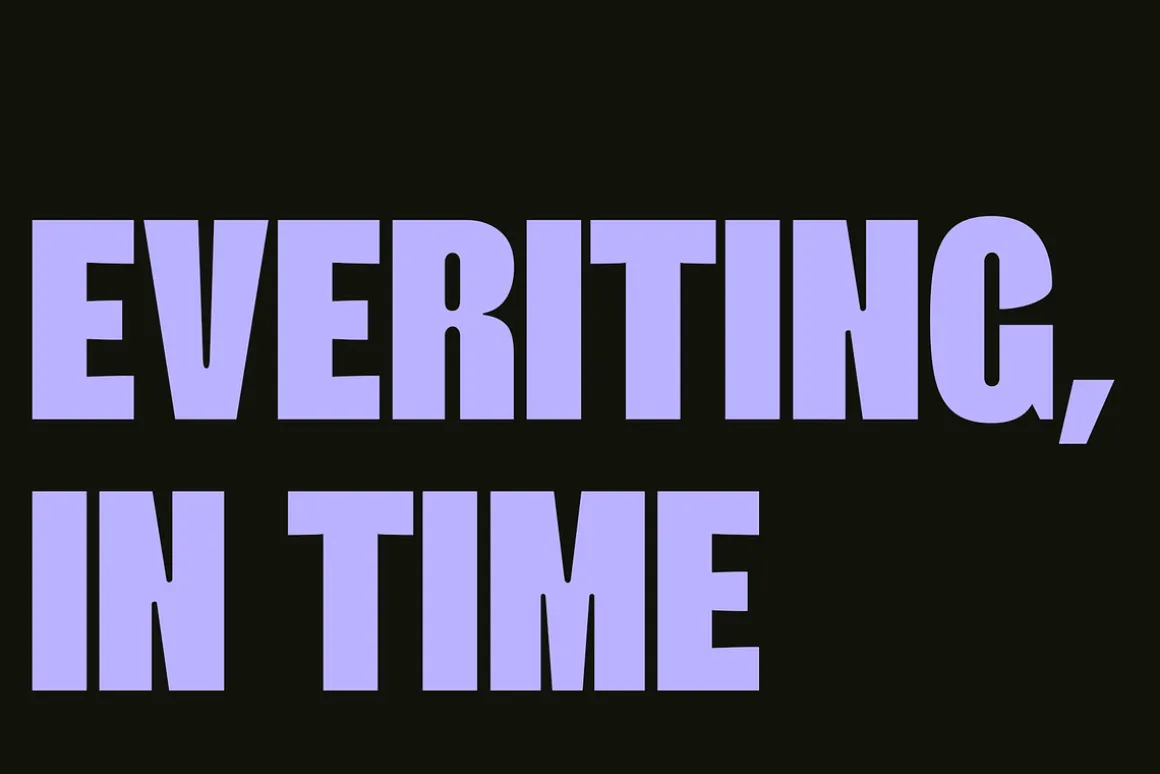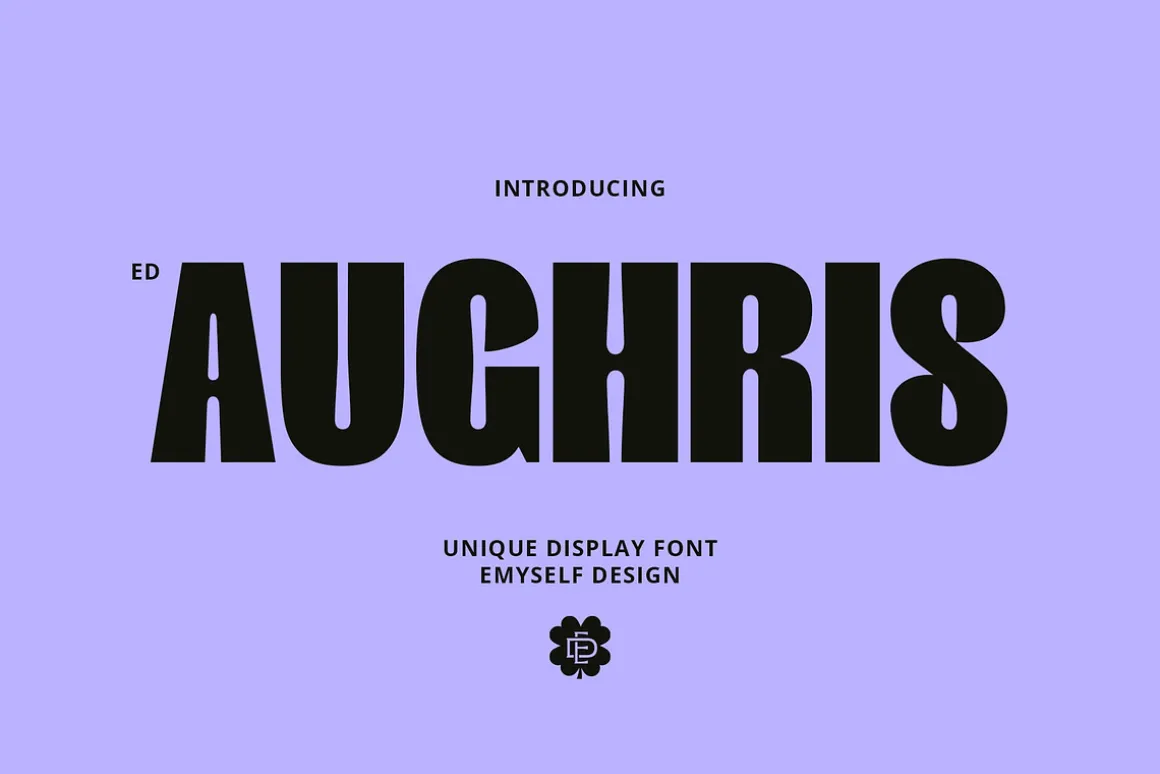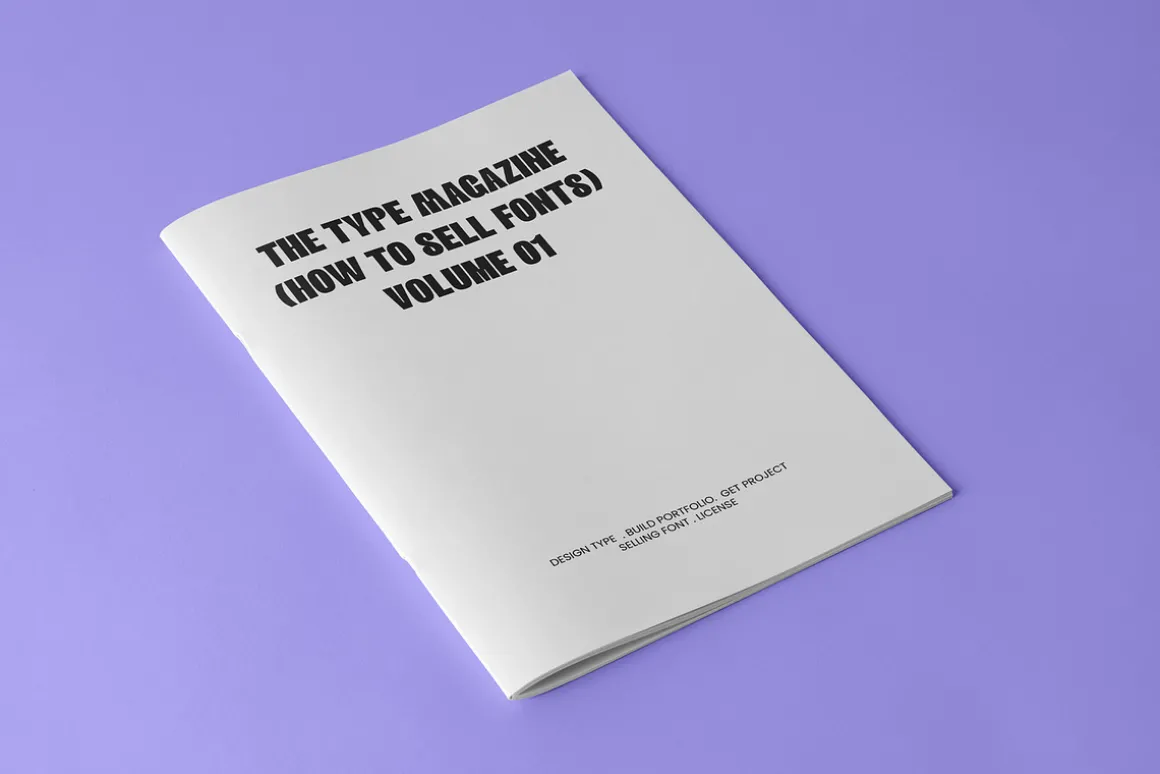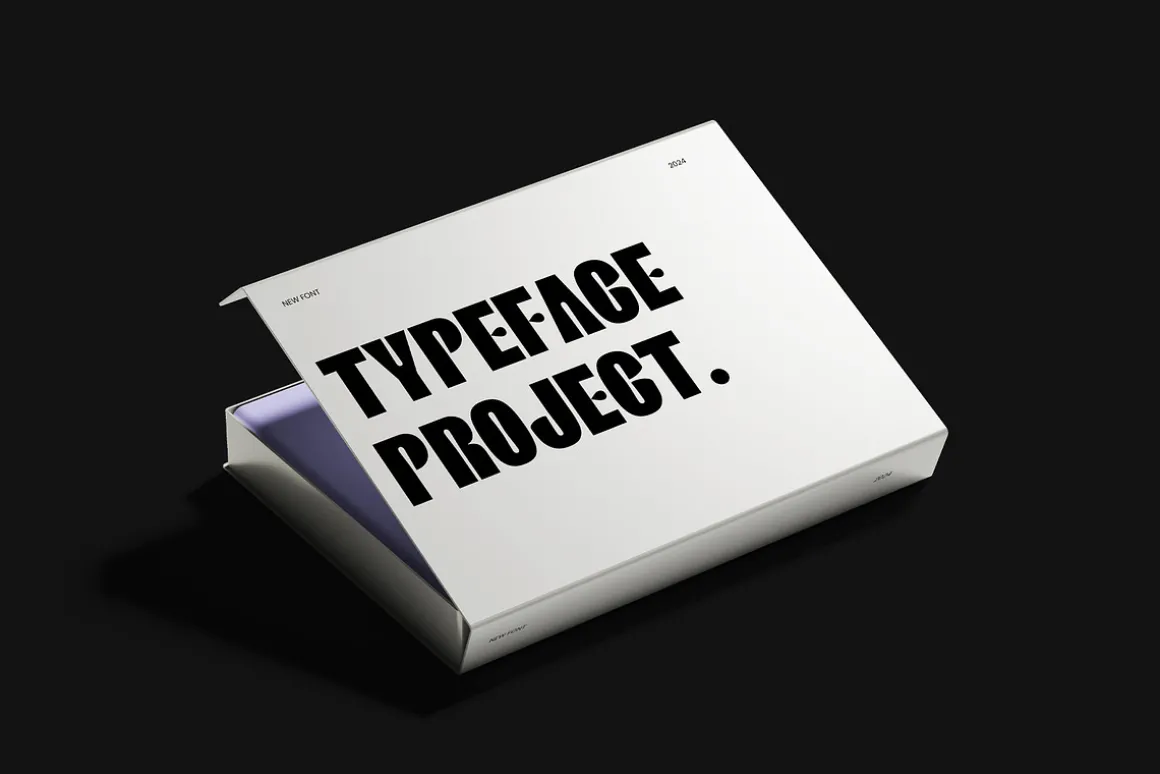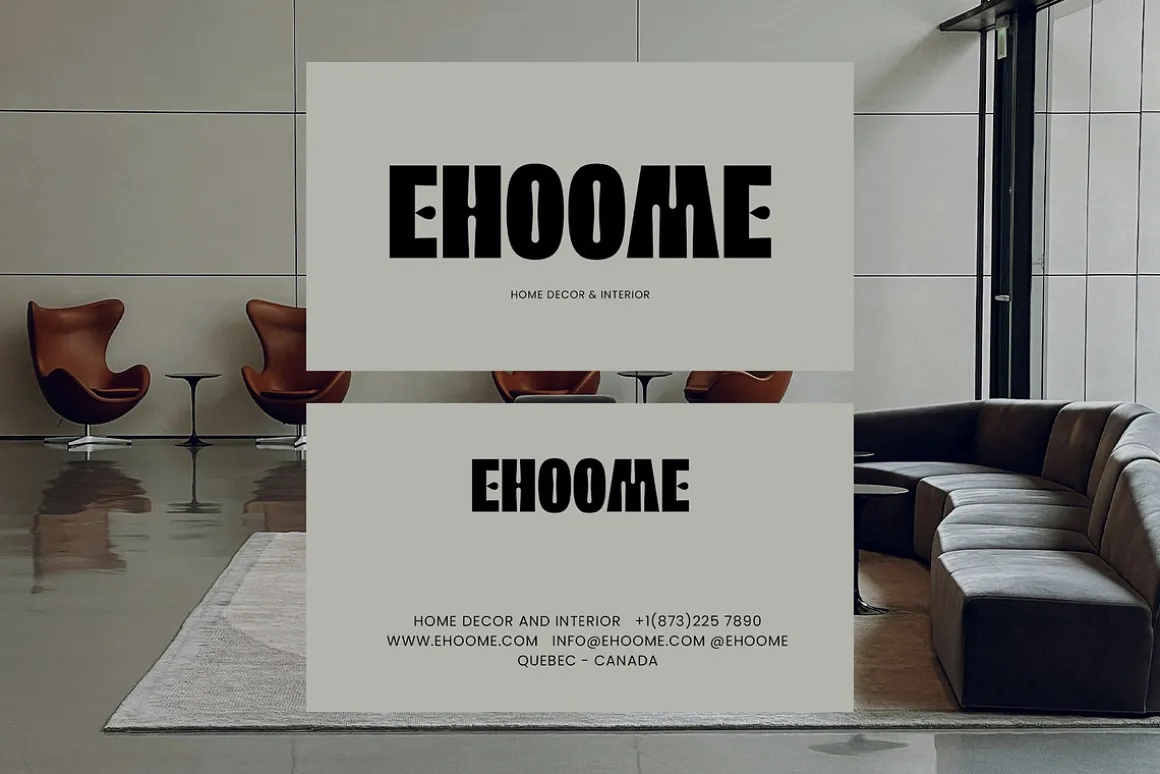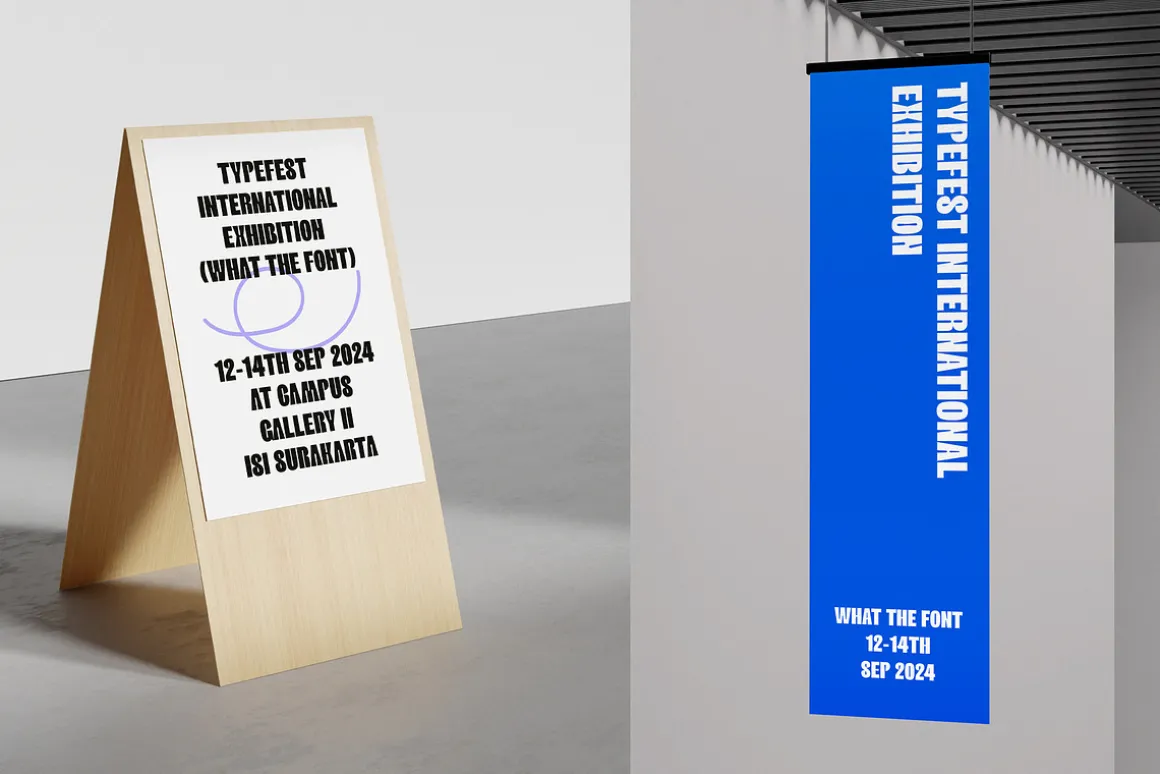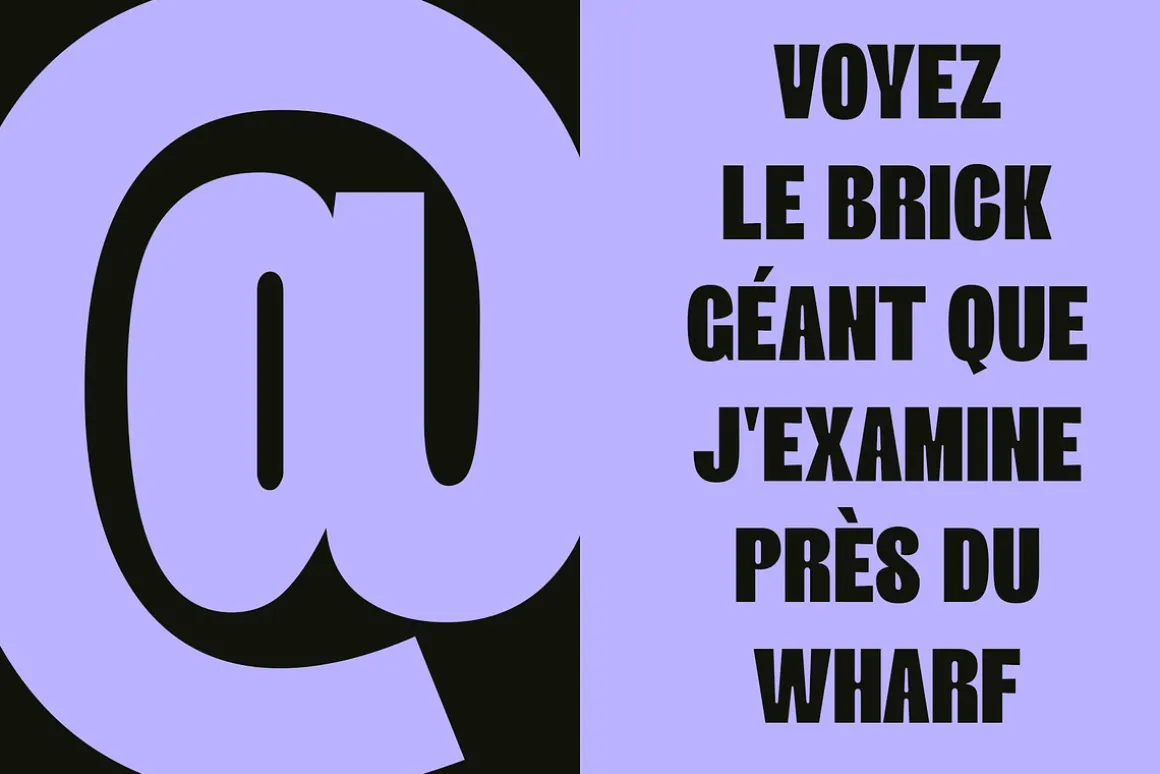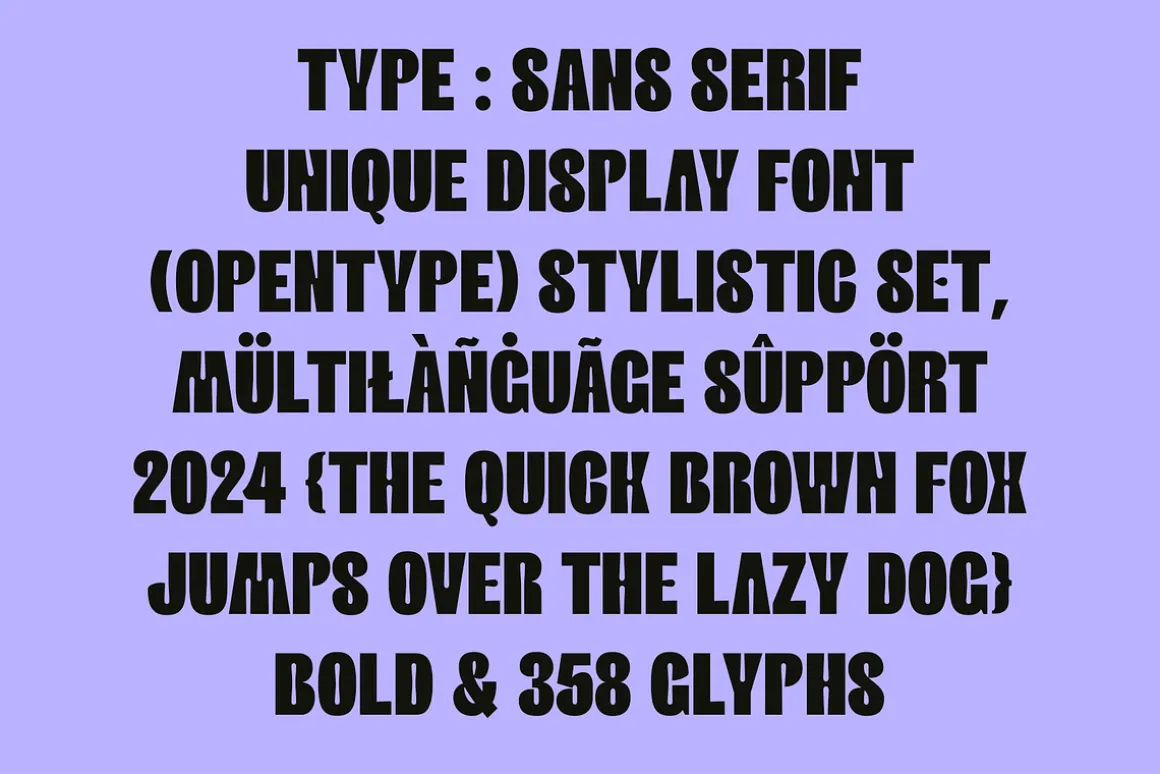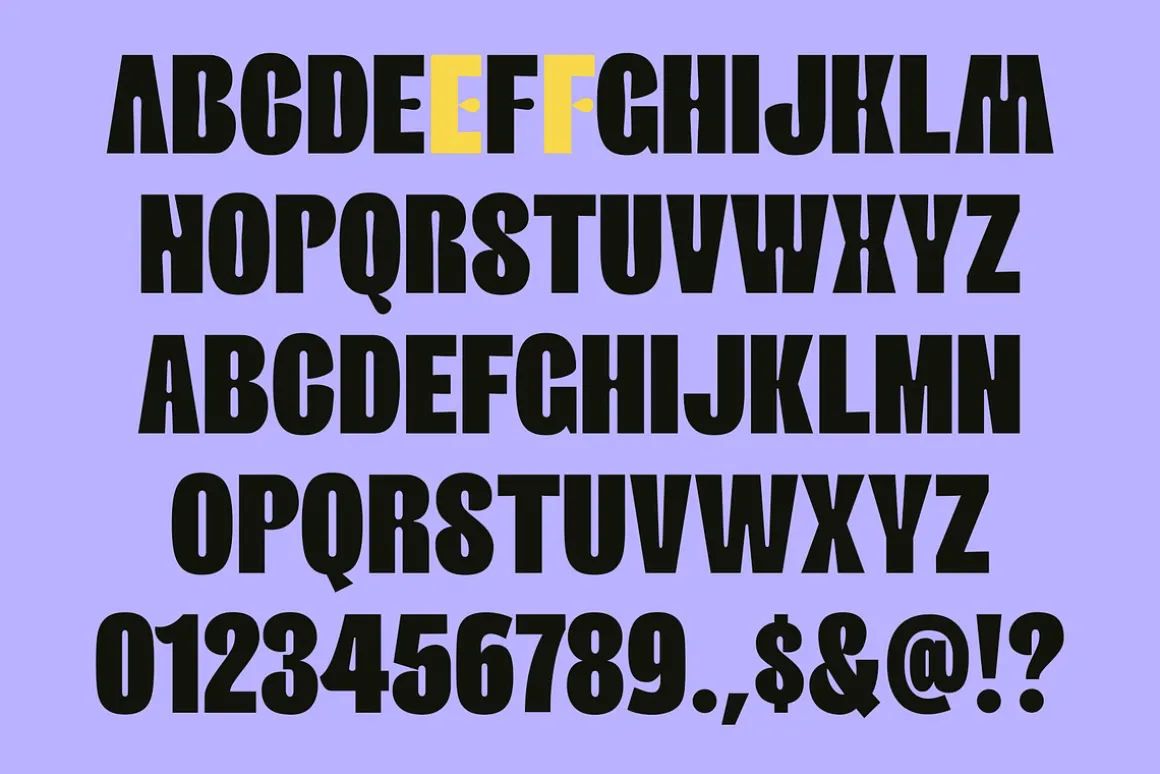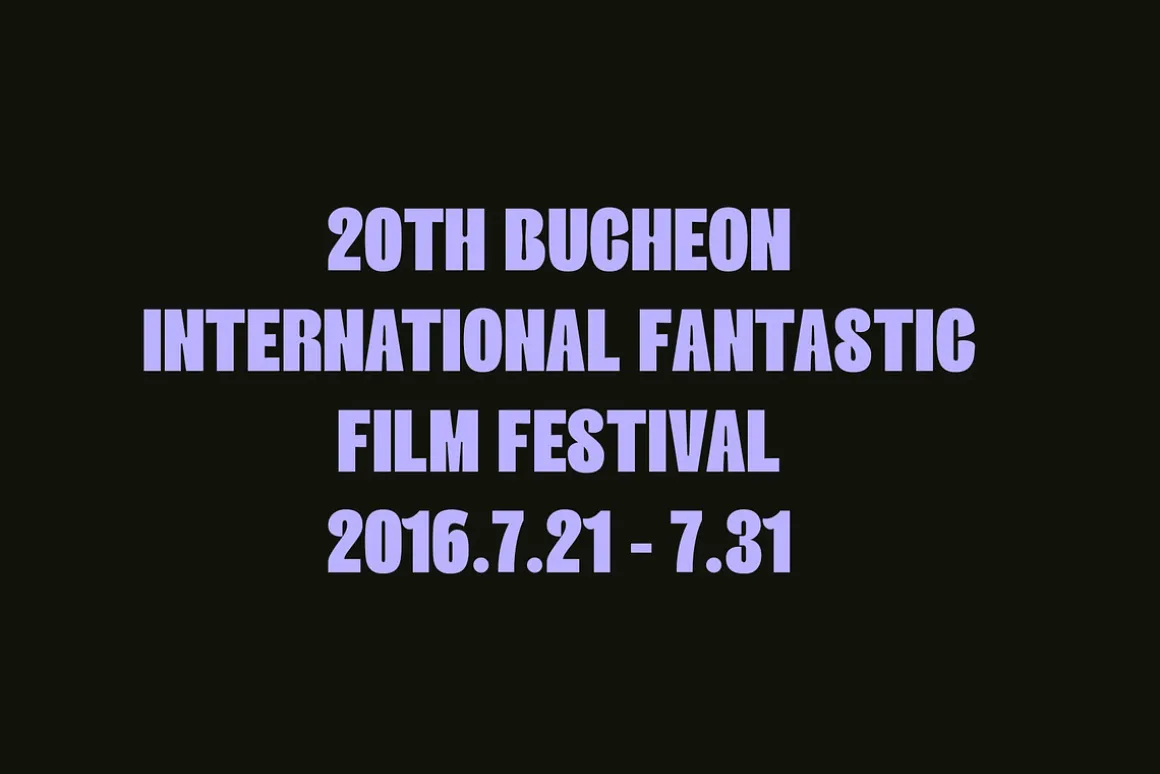
Aughris is a sans serif display font with a strong and modern character. Its bold design and minimalist style make it well-suited for a variety of design applications, from headlines to bold graphic elements.
Aughris font is designed to be easily combined with various other fonts. This gives you greater creative freedom in creating unique and interesting designs. and the distinctive shape of the Aughris font will give a different touch to each of your designs. The modern and minimalist style of Aughris also makes it very suitable for current design trends. This font will give your design a fresh and contemporary look.
FEATURES:
- Total Glyph: 358
- Punctuation and Marks
- Symbols
- Stylistic set & Ligatures